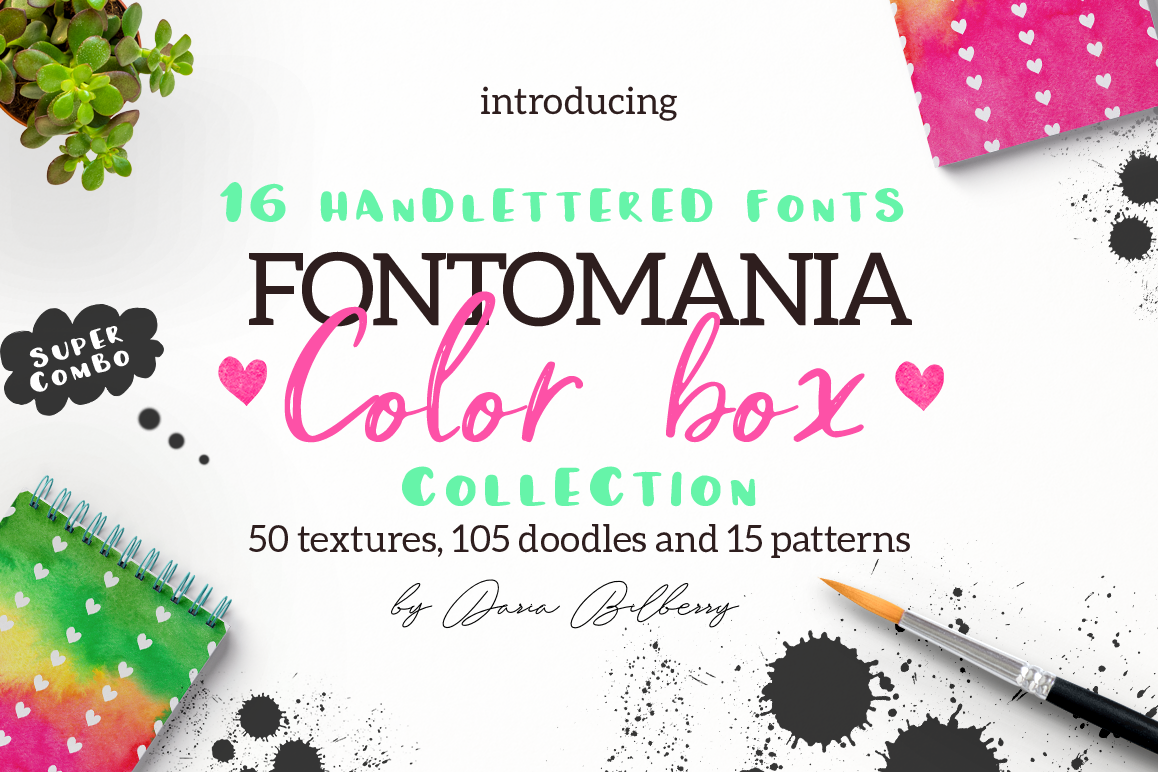
FONTOMANIA COLOR BOX
MEET NEW 16 HANDLETTERED FONTS FONTOMANIA Color Box!!!
My new kit will help you create a unique design. You can create your own unique design in just a few clicks.Can be used for various purposes. You have so much options, where can be used this product. For example as logos, wedding invitation, t-shirt, label, badges, greetings, packaging, stationery, merchandise, posters, case for your phone, websites, digital presentations and more.
• NEVERMIND
• Sweet November
• Wonderful life
• Jeremmy
• Marmelade
• Caramel
• Jullian
• Marigold
• Fantastic
• Jasmine
• Colorline
• Marmont script
• Soul&Heaven
• American beauty
• Landmark
• Goldberry